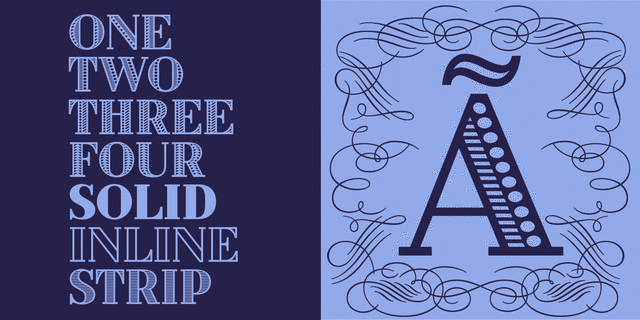
About TitulTitul is a display typeface with strong historical connotations. It is based on a series of stylish lettering for book covers, designed by Russian graphic artist Alexander Leo in the 1920s. The historical reference for him was book design of the 1st half of the 19th century. Type family consists of four ornamented and three basic styles: one solid, one inline and one striped. All seven faces have corresponding oblique styles. Also, there is a beautiful vignette font and a style for constructing ornamental borders. Titul suits best for vintage spirited typography, from the 19th to early 20th century. It is perfect for book covers, theater posters, packaging and greeting cards. Typeface was created by Isabella Chaeva and released by Paratype in 2020.